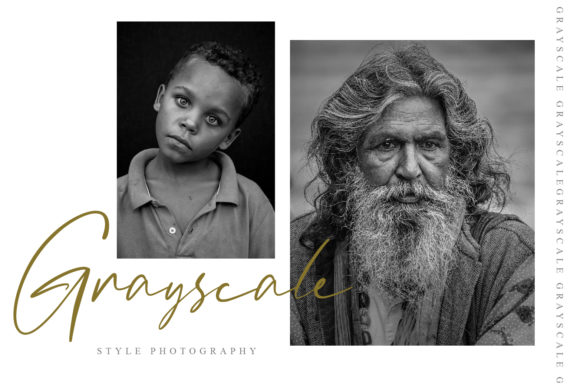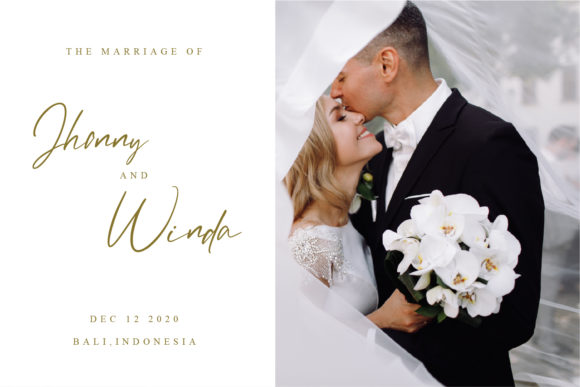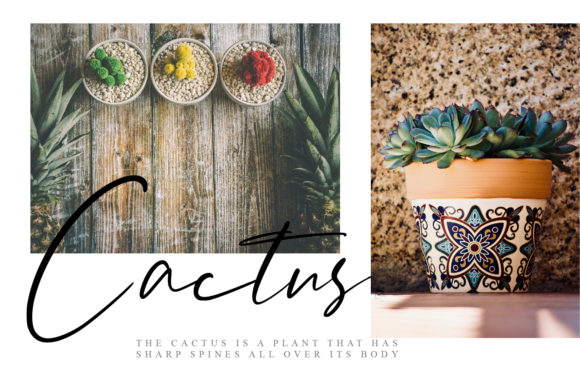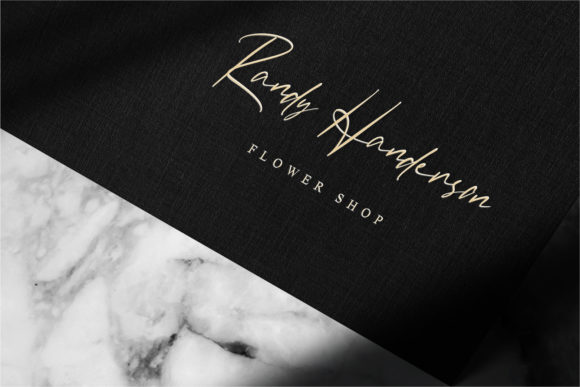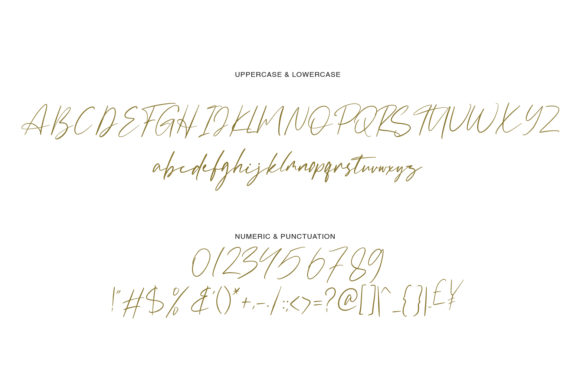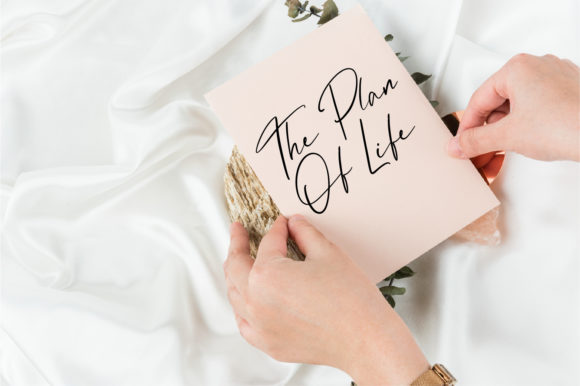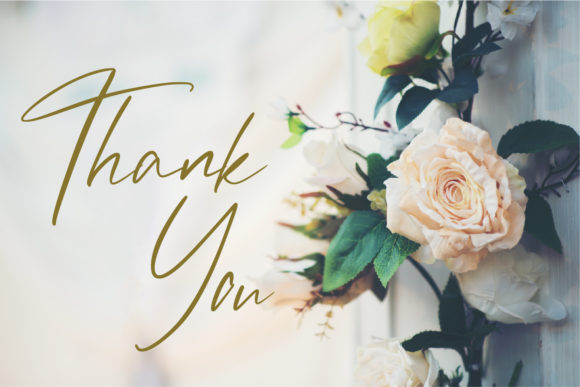
The Badmint Font
About The Badmint Font
The Badmint is a stylish and delicate script font. It has a clean, thin and smooth vibe and it will be a hit for any design that you want to add it to.